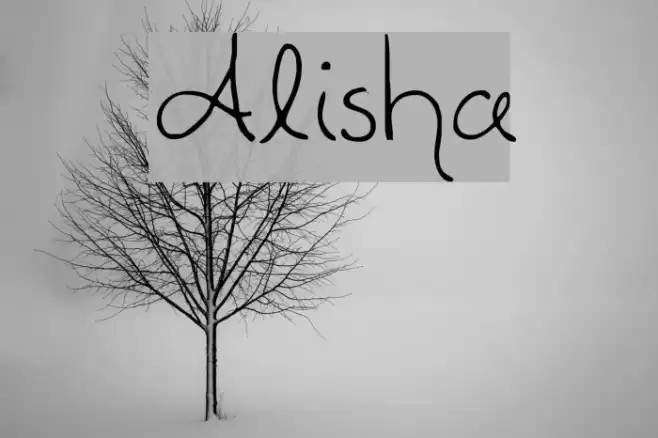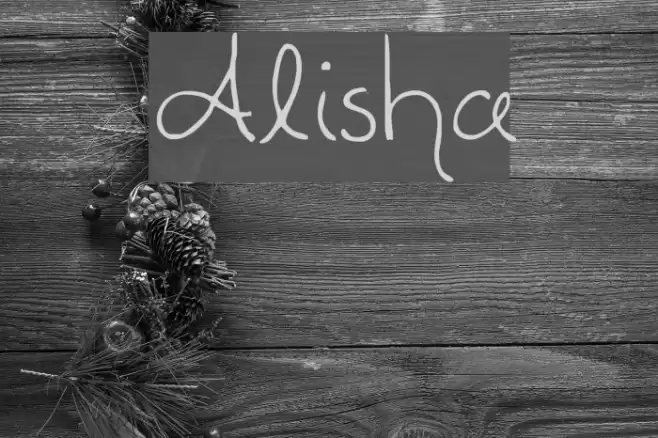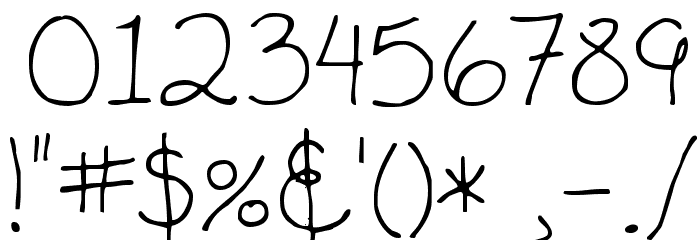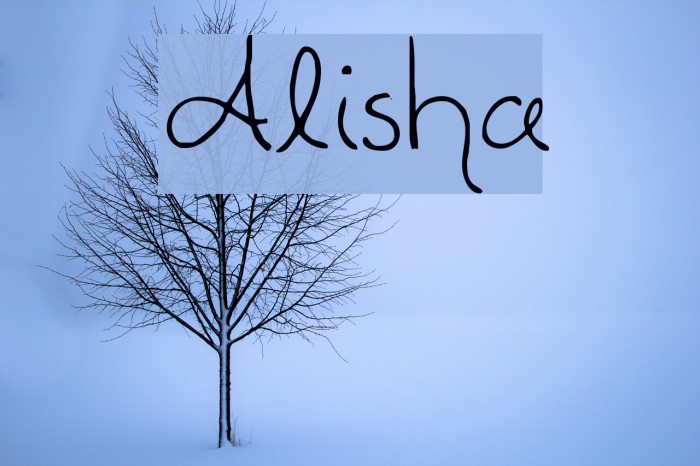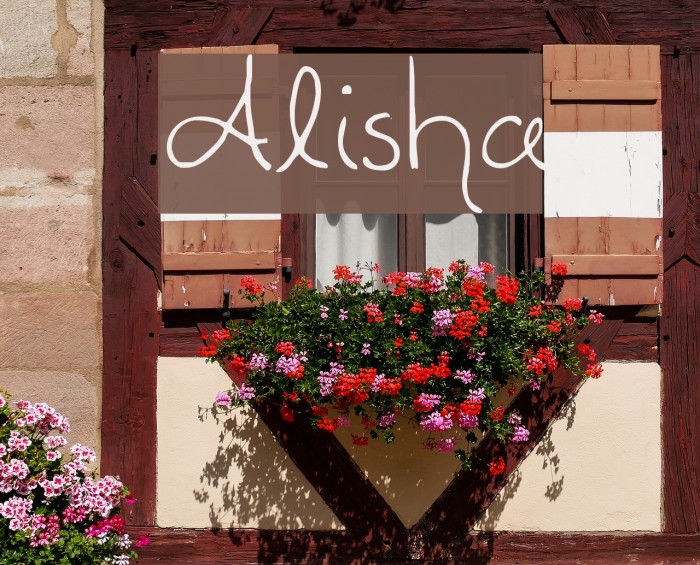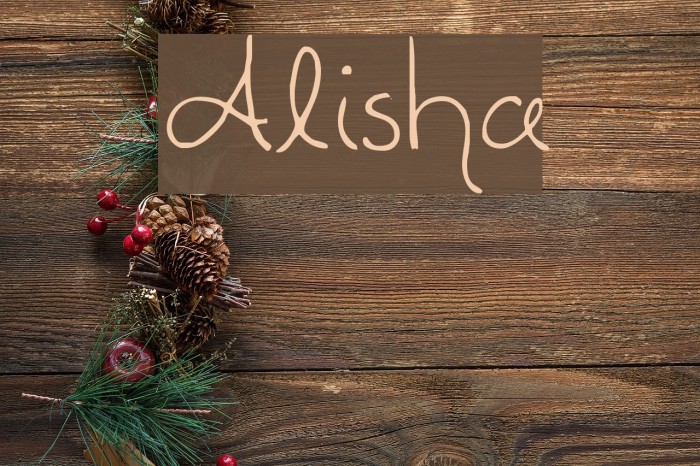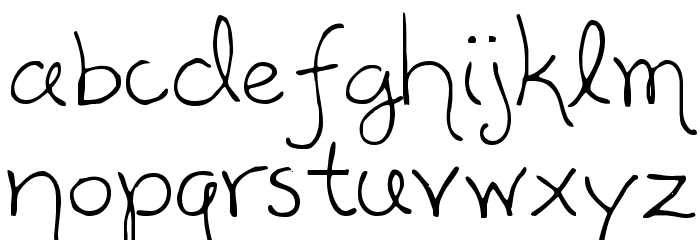
Alisha Font
Alisha Description
This font features a playful and whimsical handwritten style, characterized by its irregular strokes and casual appearance. The letters are slightly tilted, giving it a dynamic and lively feel. The uppercase and lowercase letters maintain a consistent flow, with rounded edges and a friendly demeanor. The numerals and special characters follow the same playful theme, making the font suitable for informal and creative projects. Its unique style adds a personal touch, making it ideal for designs that require a human element.
A playful, handwritten font with a whimsical and casual style from Uncategorized fonts.
- Proposed Projects: Ideal for greeting cards, children's books, personal blogs, and creative branding projects.
- Overall Style: Casual and Whimsical
- Use Case: Headlines, Informal Text, Creative Projects